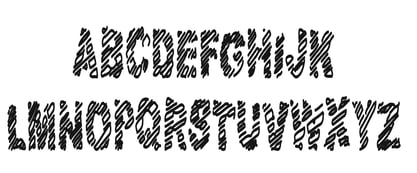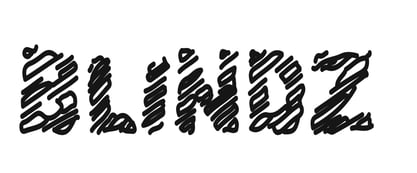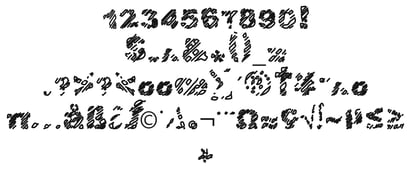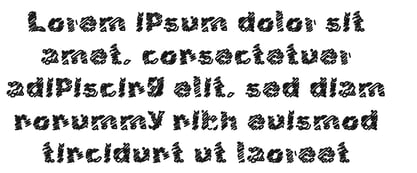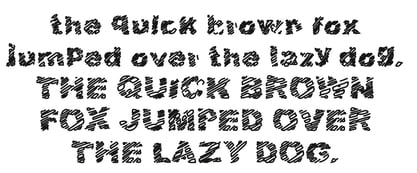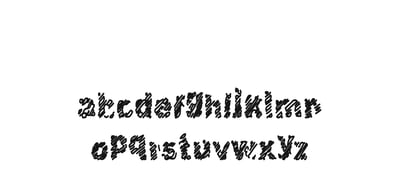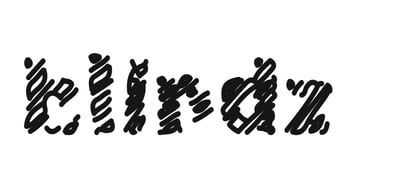
Blindz
by Jointype
The Blindz Font Family was designed by Jeremy Gill-Praba and published by Jointype. Blindz contains 1 styles. More about this family
This font has been inspired by shutters and blinds.It has been inspired by all of the peeping toms out there and the idea of the unseen becoming seen ."Blinds" is a sleek, modern font inspired by the horizontal slats of window blinds. Its unique design incorporates clean, straight lines with subtle, angular cuts that mimic the look of blinds as they shift open or closed. The characters have a minimalist yet dynamic feel, with some letters featuring overlapping or staggered elements that evoke a sense of movement and fluidity.
Blinds font is often used for branding, advertising, or any design that wants to convey a contemporary, professional, or architectural vibe. Its versatility allows it to pair well with both bold and soft designs, making it a great choice for projects that need a clean, modern aesthetic with just a touch of visual intrigue.
Designers: Jeremy Gill-Praba
Current Foundry: Jointype